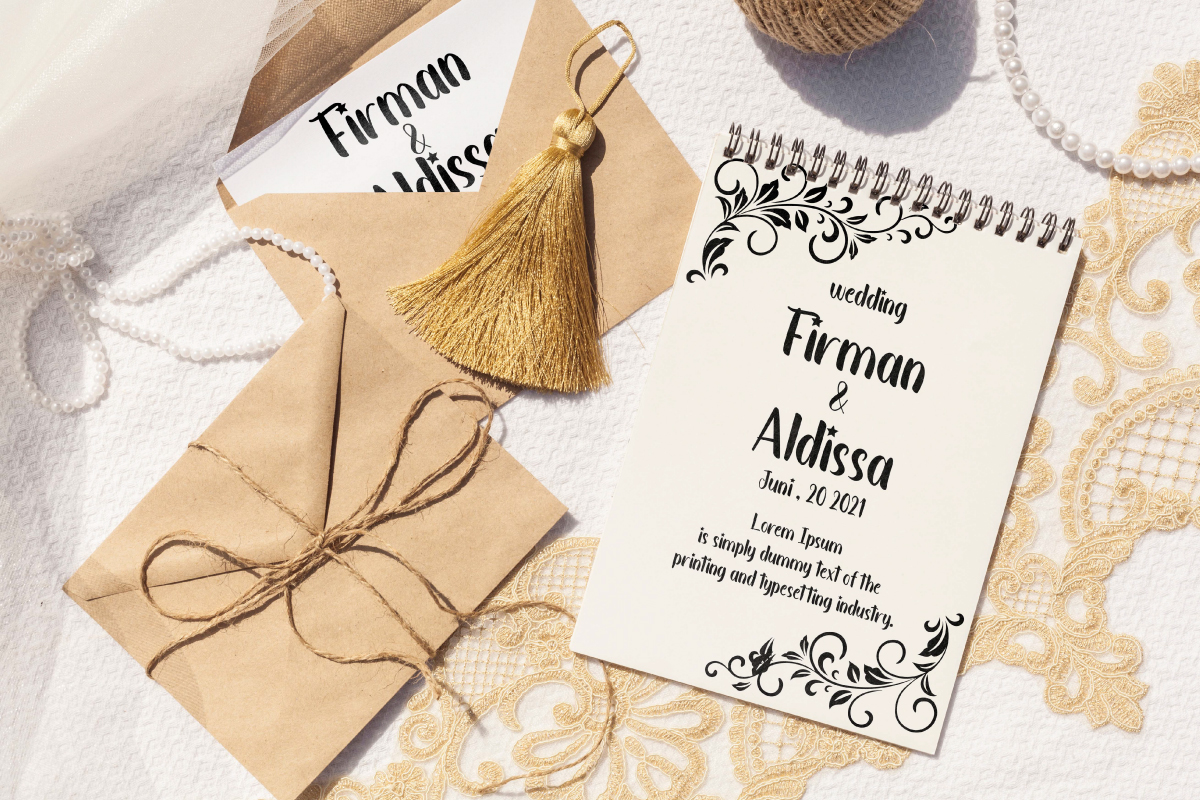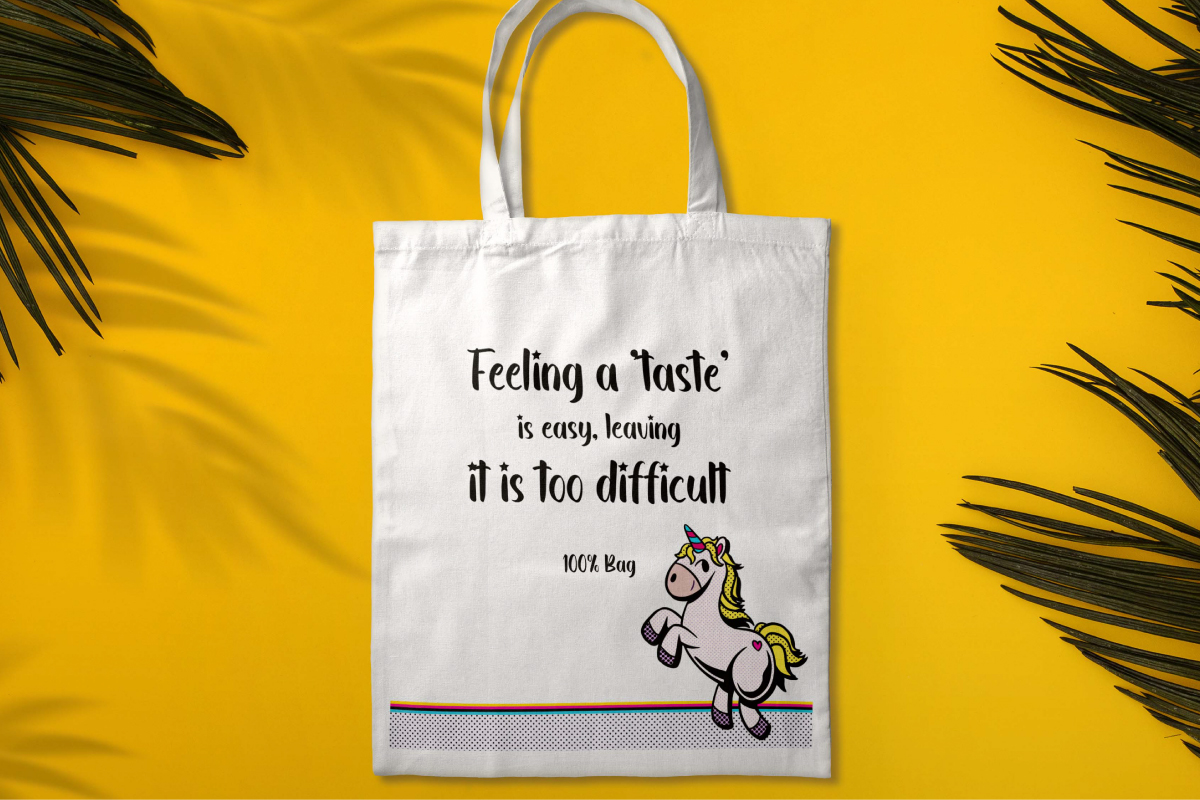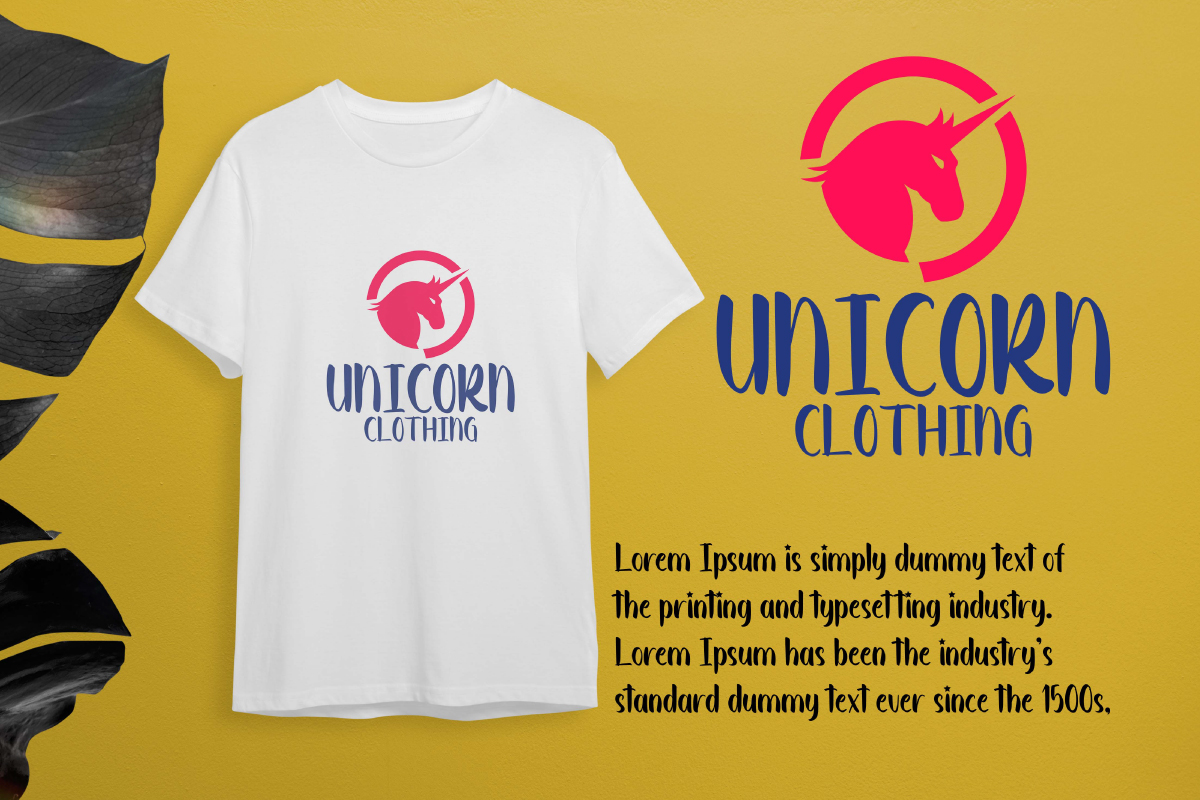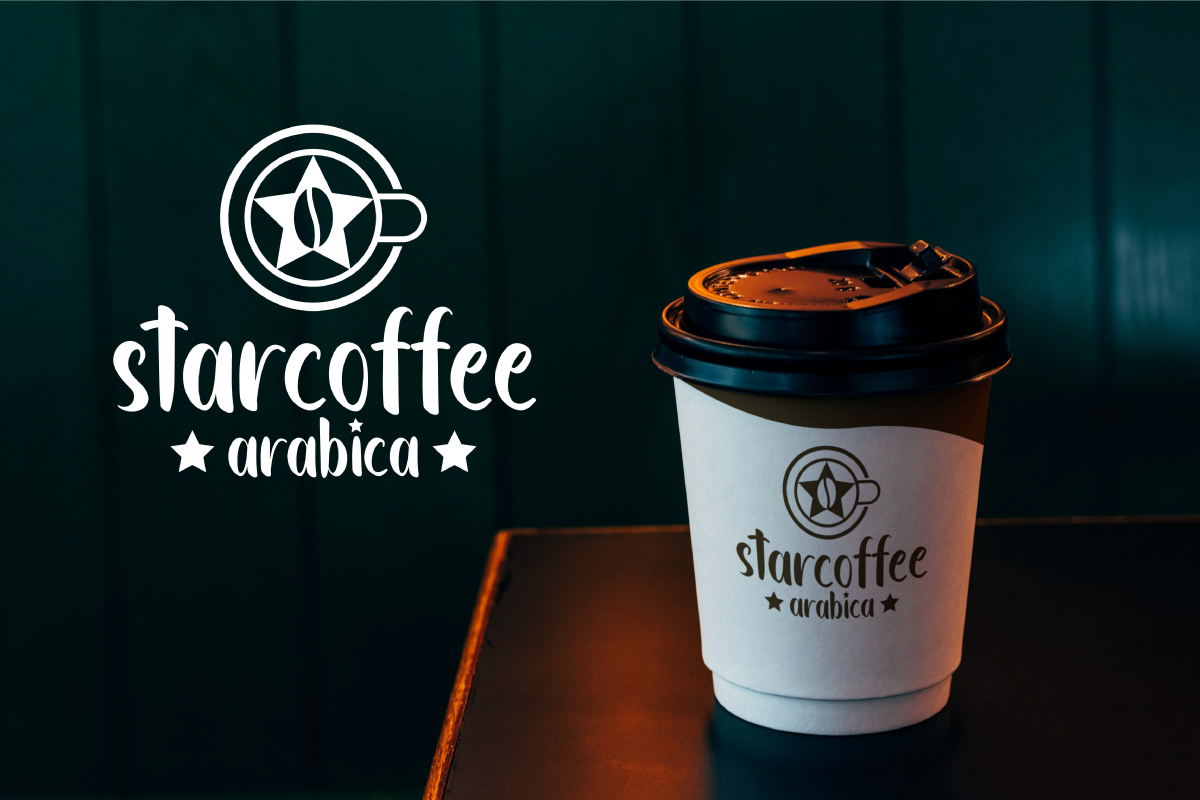
Fairylike Font
Fairylike Script Font
This is a playful display font with cute characters. Inspired by children’s favorite bedtime stories. This font would be perfect for projects that require a touch of fantasy, such as book cover, branding logo, brochure, business card, coffee shop, craft, fashion, invitation, label, movie, poster, product design, quote, school, signage, toy, etc.